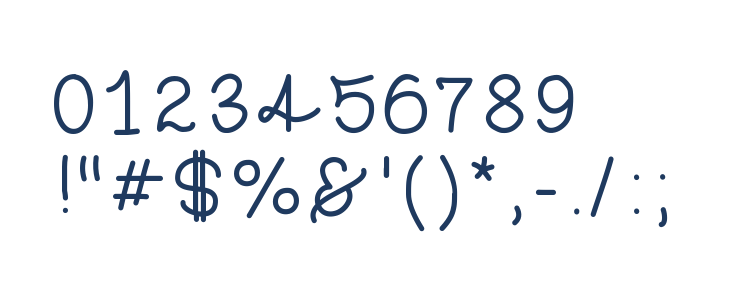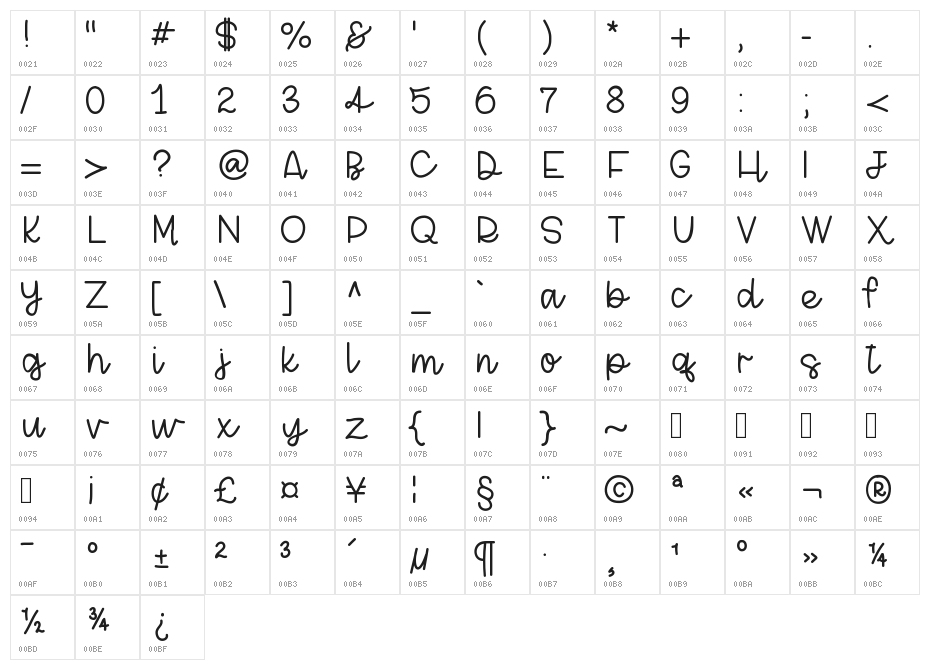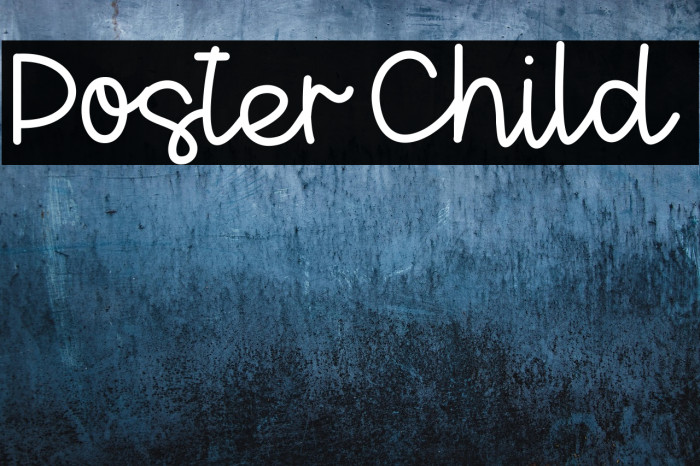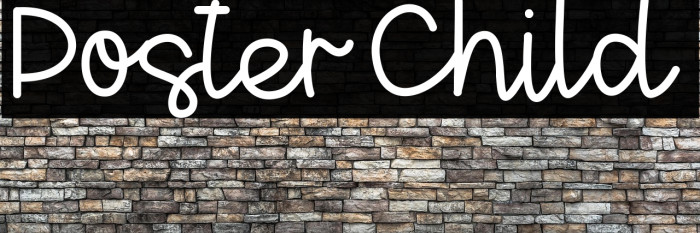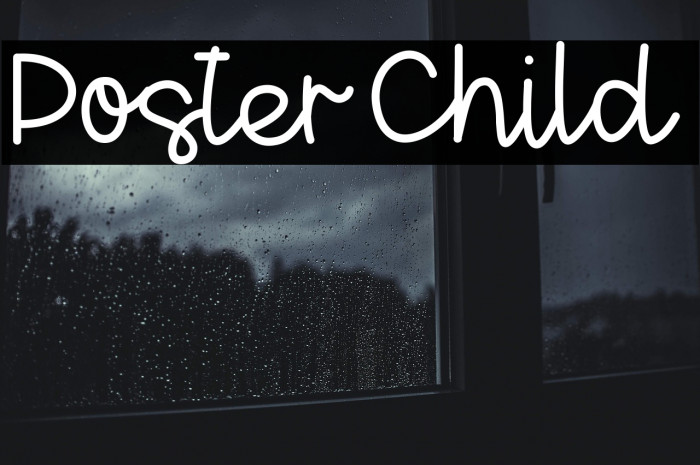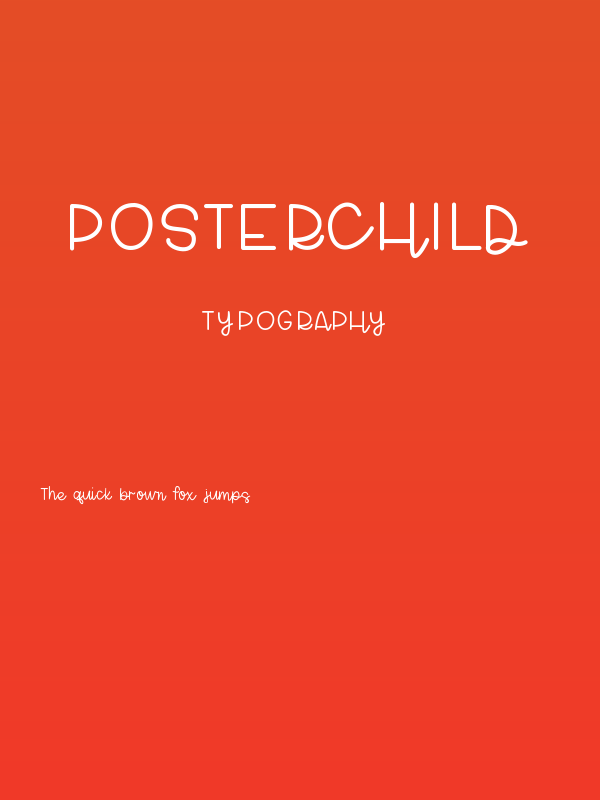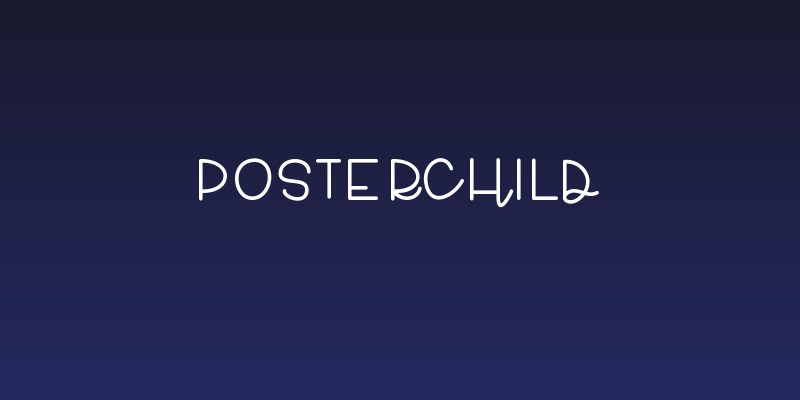
PosterChild Font
PosterChild Description
This font features a playful and casual handwritten style, characterized by its smooth, flowing curves and slightly irregular letterforms. The uppercase letters maintain a consistent height, while the lowercase letters exhibit a charming, informal touch with some letters extending slightly above or below the baseline. The numerals are clear and easy to read, matching the overall whimsical aesthetic of the font. Special characters are well-integrated, maintaining the same playful style. This font is ideal for projects that require a personal, friendly touch.